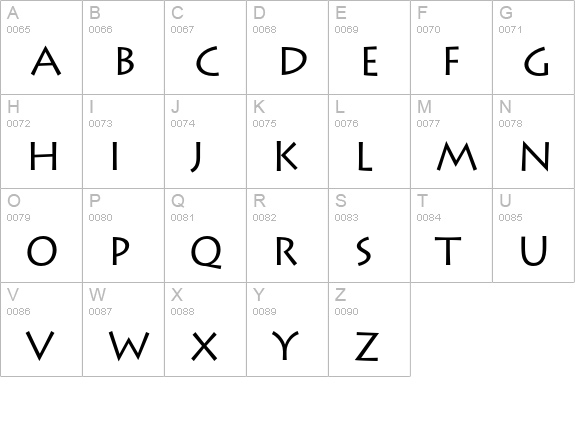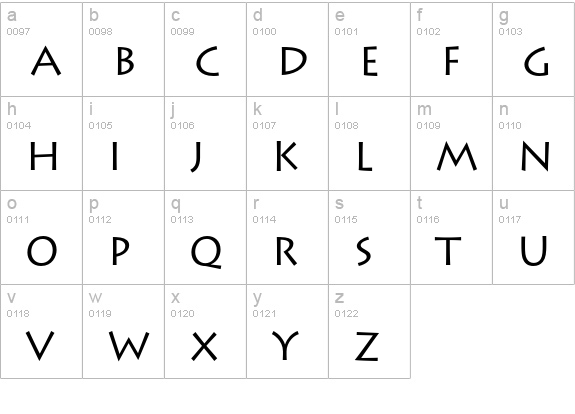
Lithos Regular Font Details
Lithos Regular is the standard, neutral variant in the Lithos typeface family \xE2\x80\x94 well suited to general body text, paragraphs, and standard typographic work.
Lithos Regular is a versatile and stylish font that exudes a sense of modernity and sophistication. With its clean lines and bold strokes, this typeface is perfect for a wide range of design projects, from logos to headlines to body text. The geometric shapes and sharp edges of Lithos Regular give it a contemporary and edgy feel that is sure to make your designs stand out. What's even better is that Lithos Regular is available for free download at FontsMarket.com. Yes, you read that right - you can get your hands on this sleek and professional font without spending a dime. So why wait? Elevate your design projects with Lithos Regular today and see the difference it can make.